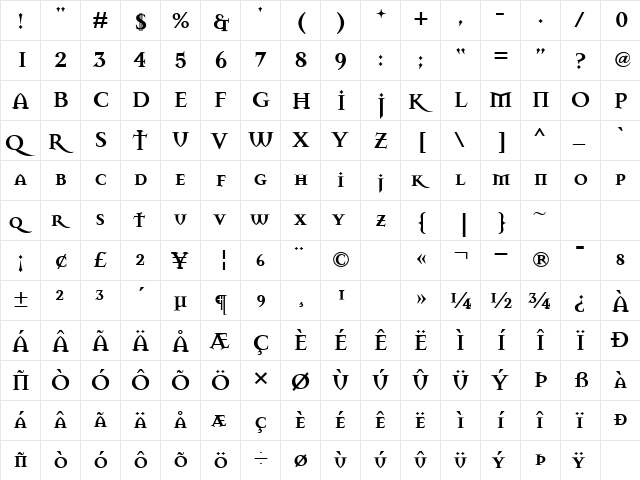
MasonSerifBold Regular Font Preview
MasonSerifBold Regular
MasonSerifBold Regular Font Details
Design Context for MasonSerifBold Typeface
MasonSerifBold carries the refined structure of traditional serif typography, with bracketed terminals and considered proportions that communicate credibility and craft. The heavy weight commands attention and anchors typographic hierarchies.